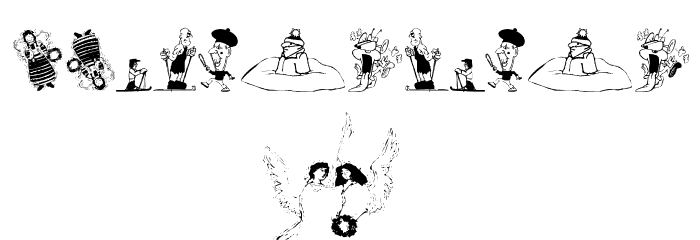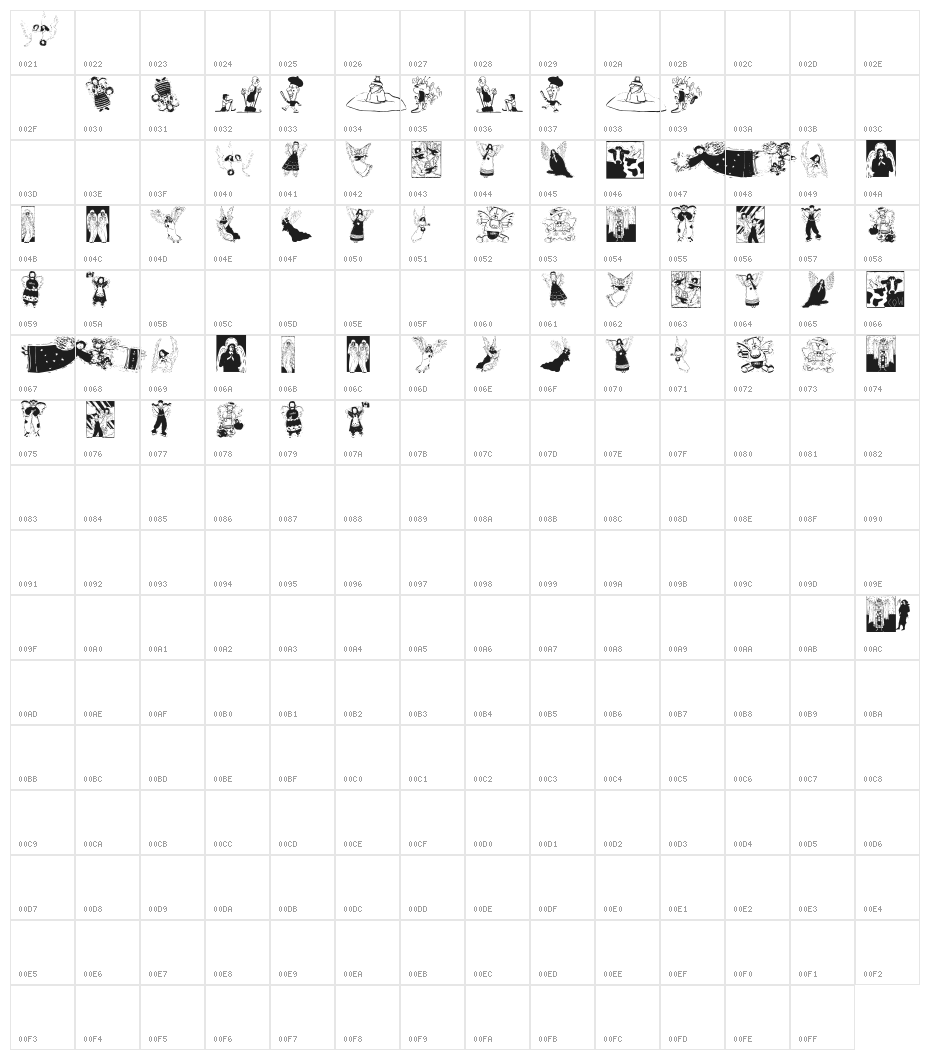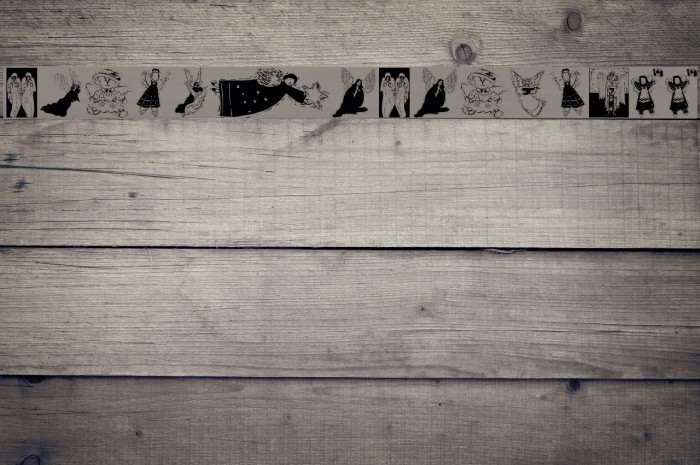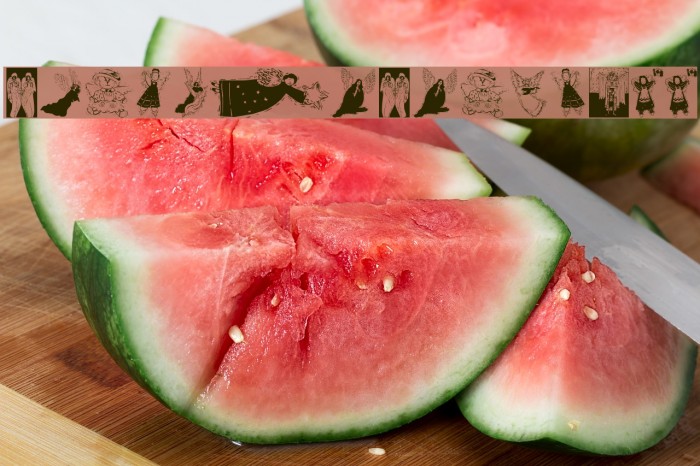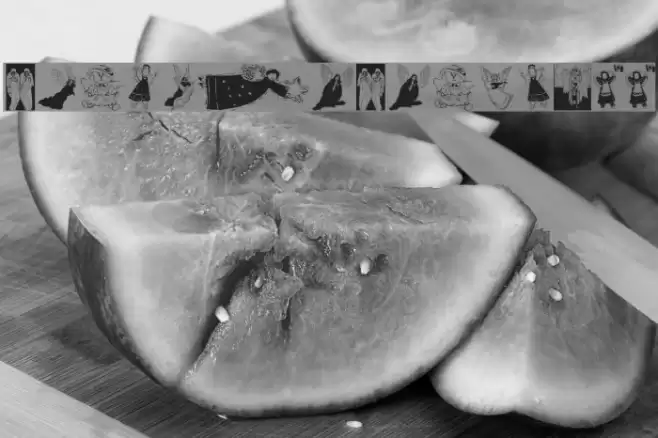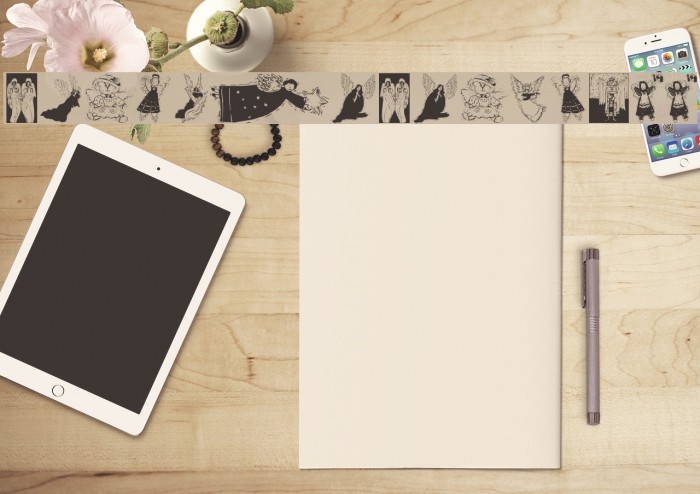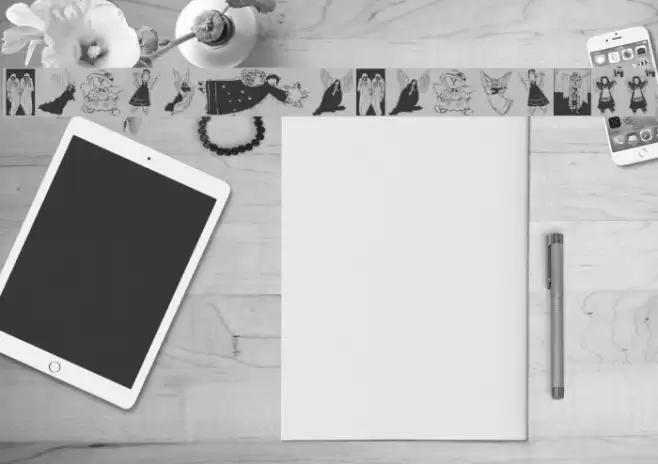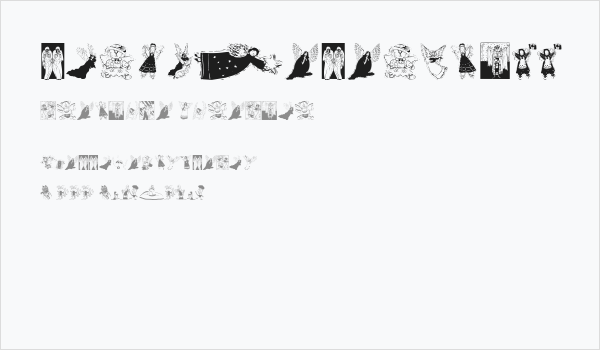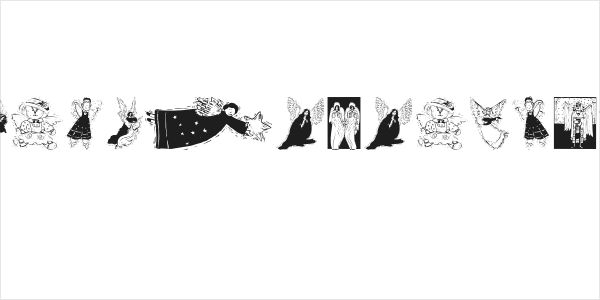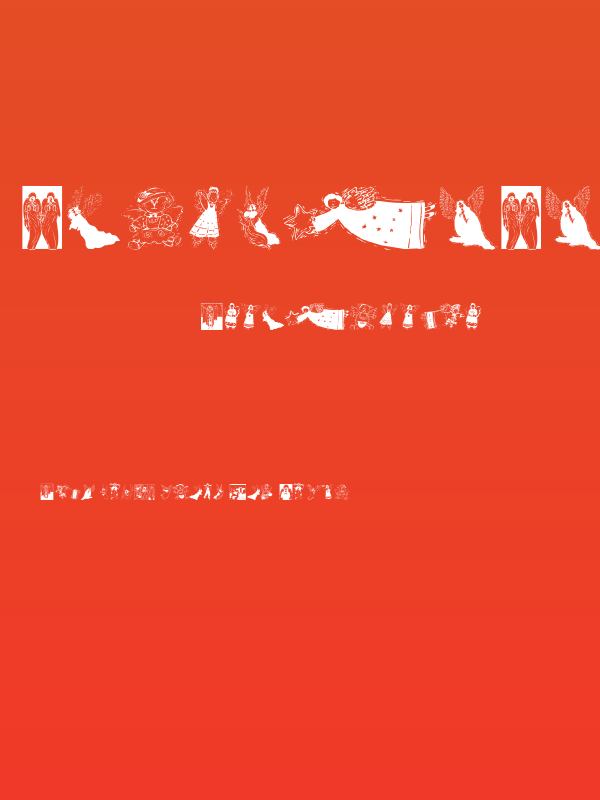
LosAngelesBatzz Font
LosAngelesBatzz Description
A highly decorative and whimsical dingbat font featuring hand-drawn illustrations of angels, children, and festive scenes. Each character is represented by a unique, detailed image rather than traditional letterforms.
| Overall Style | Decorative, Whimsical, Festive |
| Use Case | Decorative elements, Themed graphics, Non-textual design accents |
| Proposed Projects | Holiday cards, children's book decorations, festive invitations, scrapbooking, themed posters. |